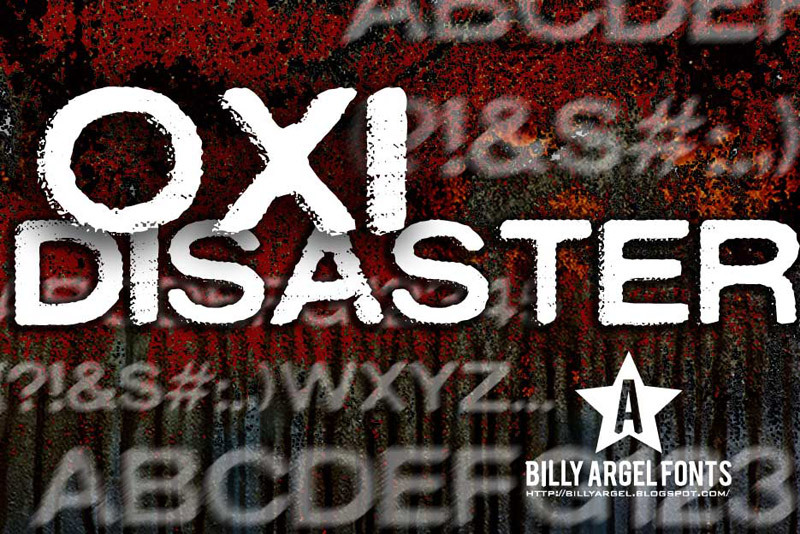
OXIDISASTER by Billy Argel is a free eroded display font with hefty capitals, a blunt industrial silhouette, and broad rounded letters set among tighter, more upright forms. Ragged edges and scattered pits give every stroke a weather-beaten surface.
Concert posters are its strongest setting, where the dense lettering can resemble battered ink or a worn screen print. That same roughness suits album covers, skate merchandise, and labels for small-batch drinks, especially when the design calls for something physical and unpolished. Across these uses, the chipped texture points toward punk, garage rock, and workshop imagery rather than sleek digital styling.